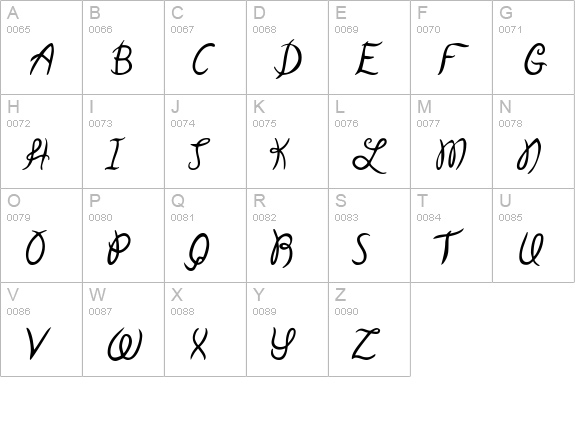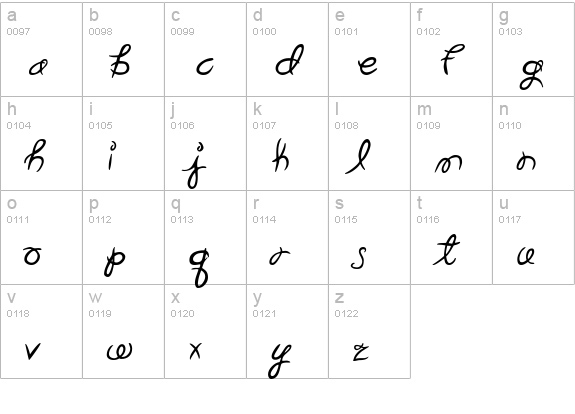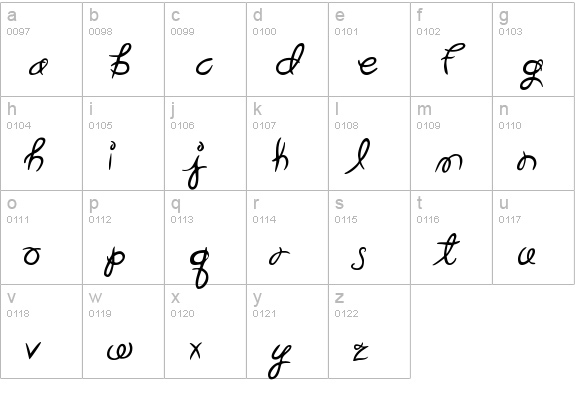
Garden Weasel Font Details
Garden Weasel font is a whimsical and charming typeface that brings a touch of nature to your designs. With its organic curves and playful flourishes, this font is perfect for adding a touch of garden-inspired elegance to invitations, posters, and more. The Garden Weasel font is freely available to download at FontsMarket.com, making it easy to bring a touch of natural beauty to your projects. Let your creativity bloom with the delightful Garden Weasel font!